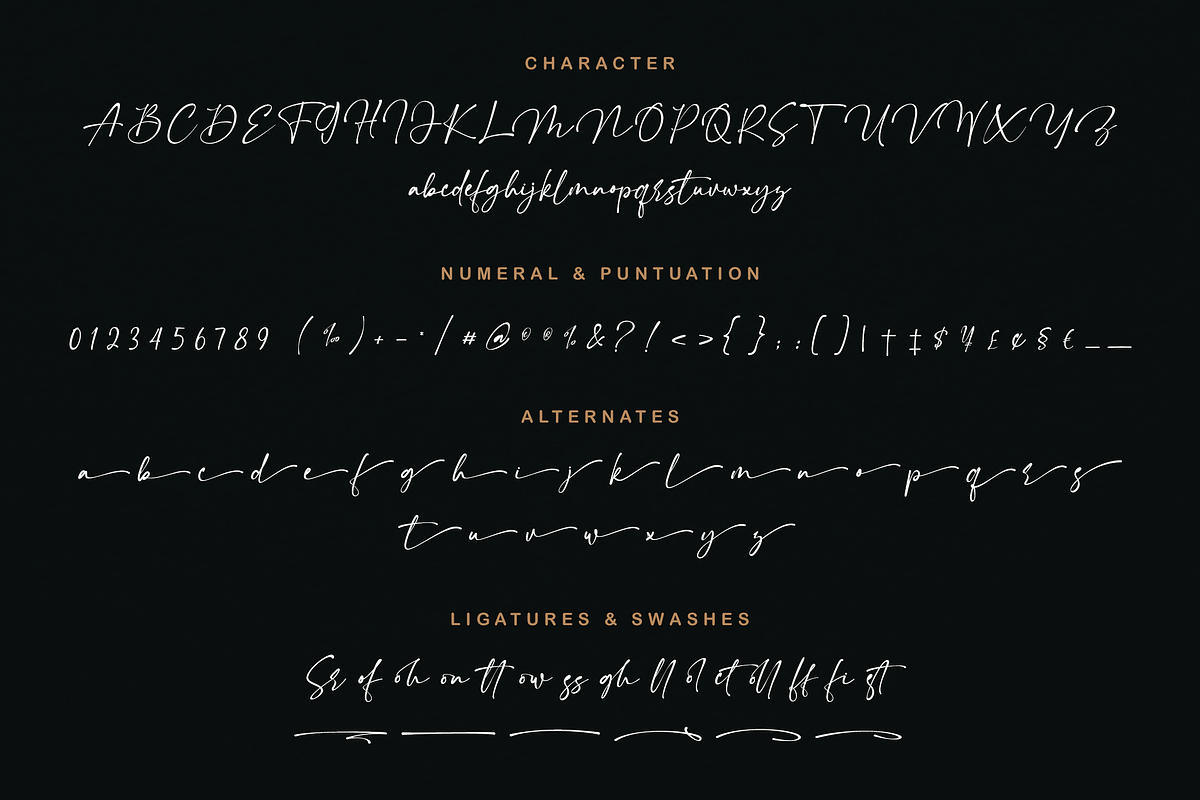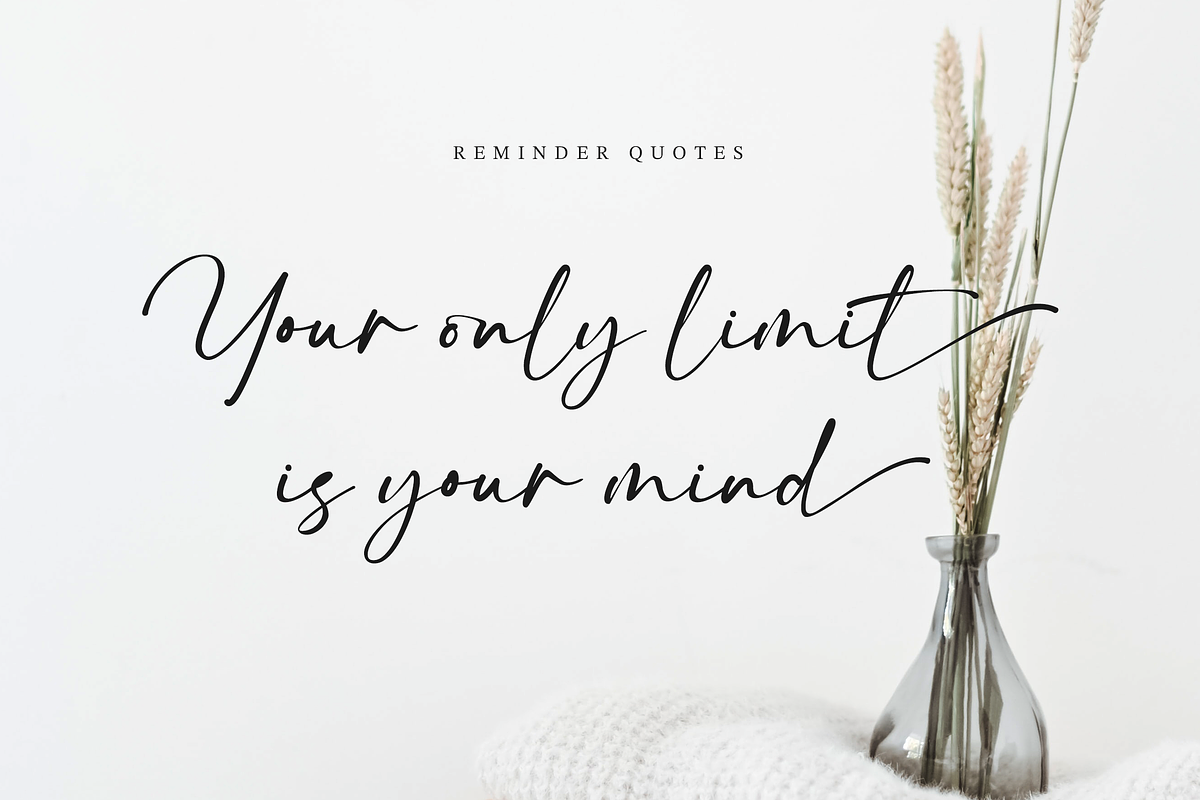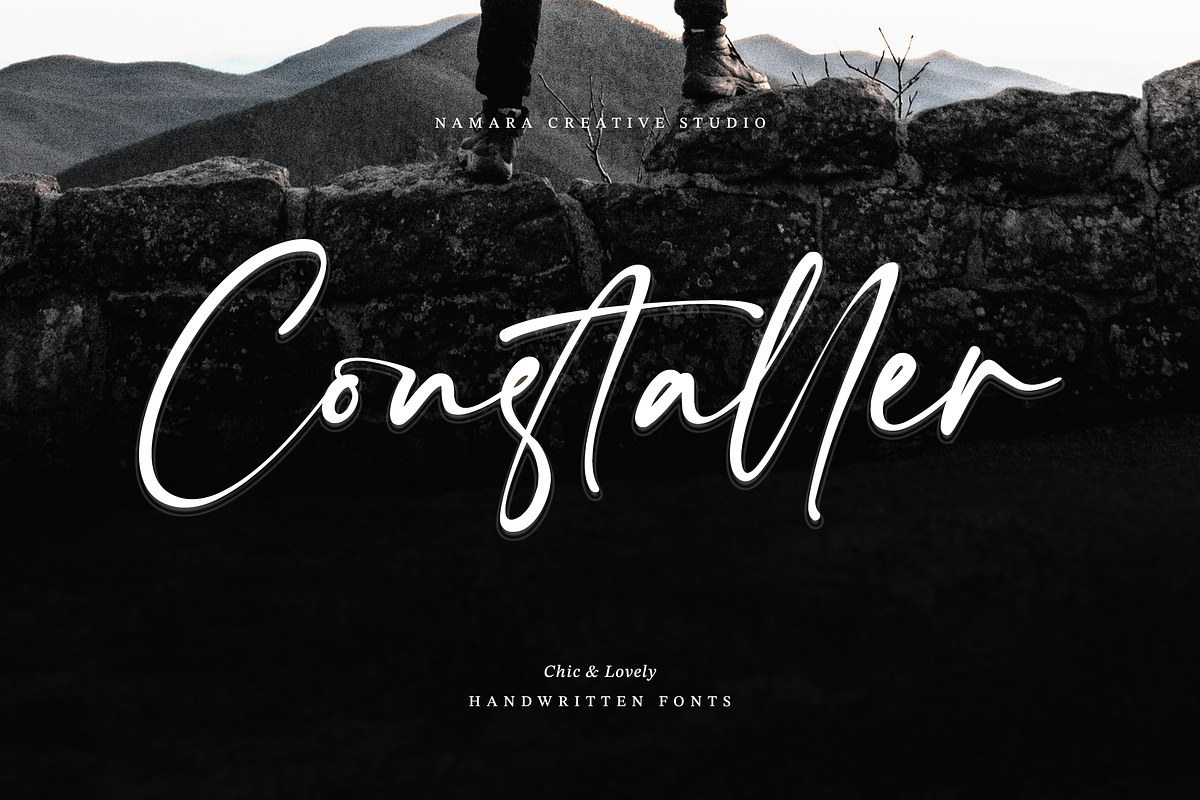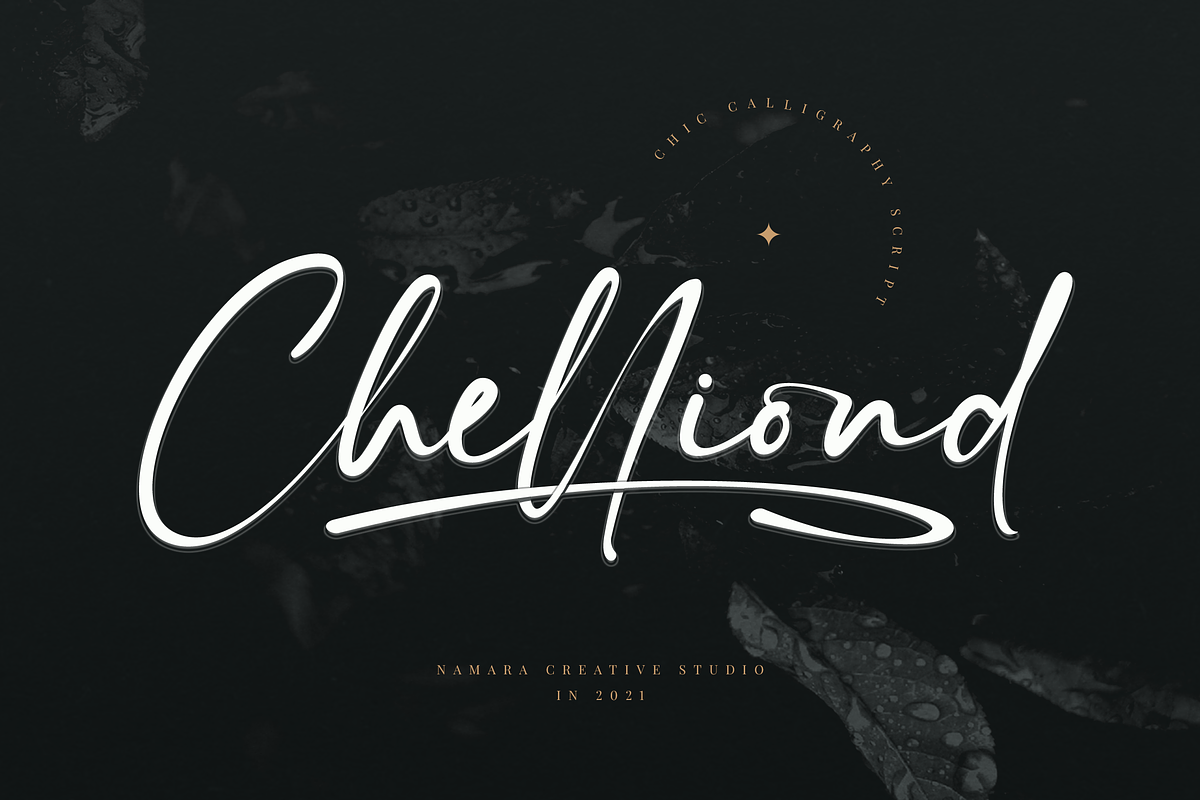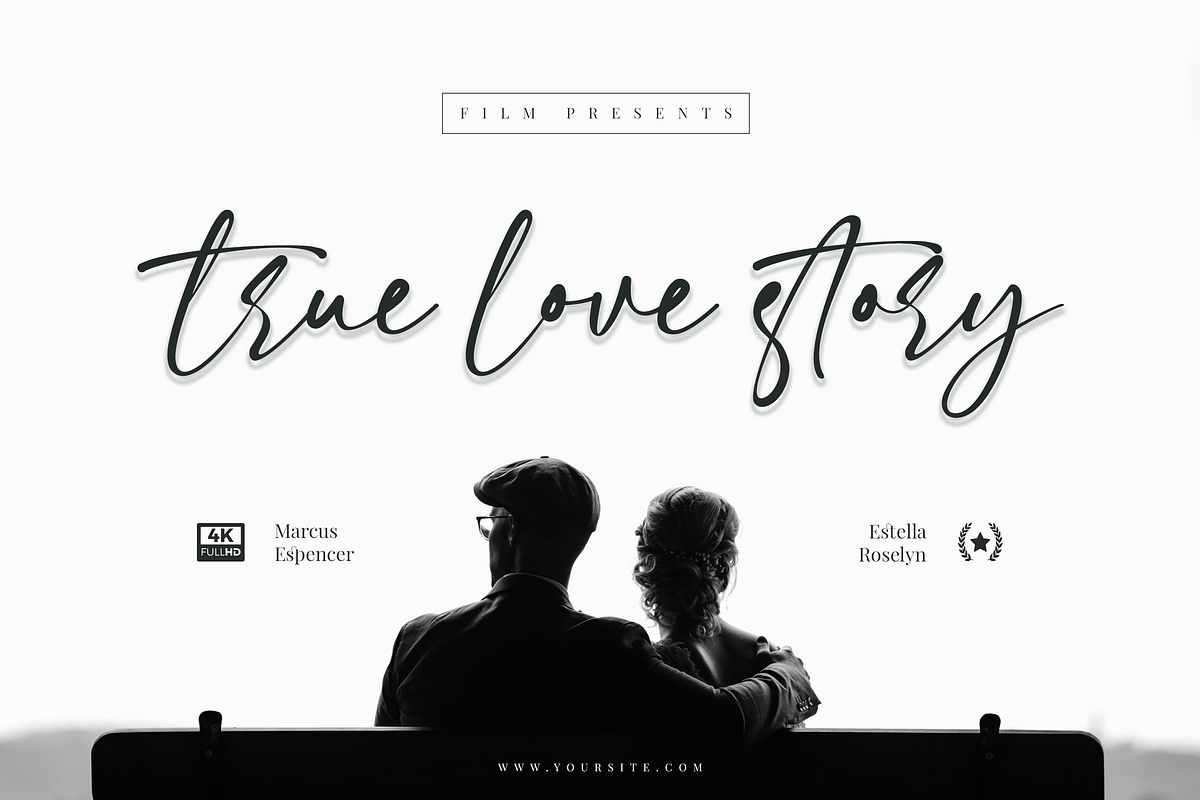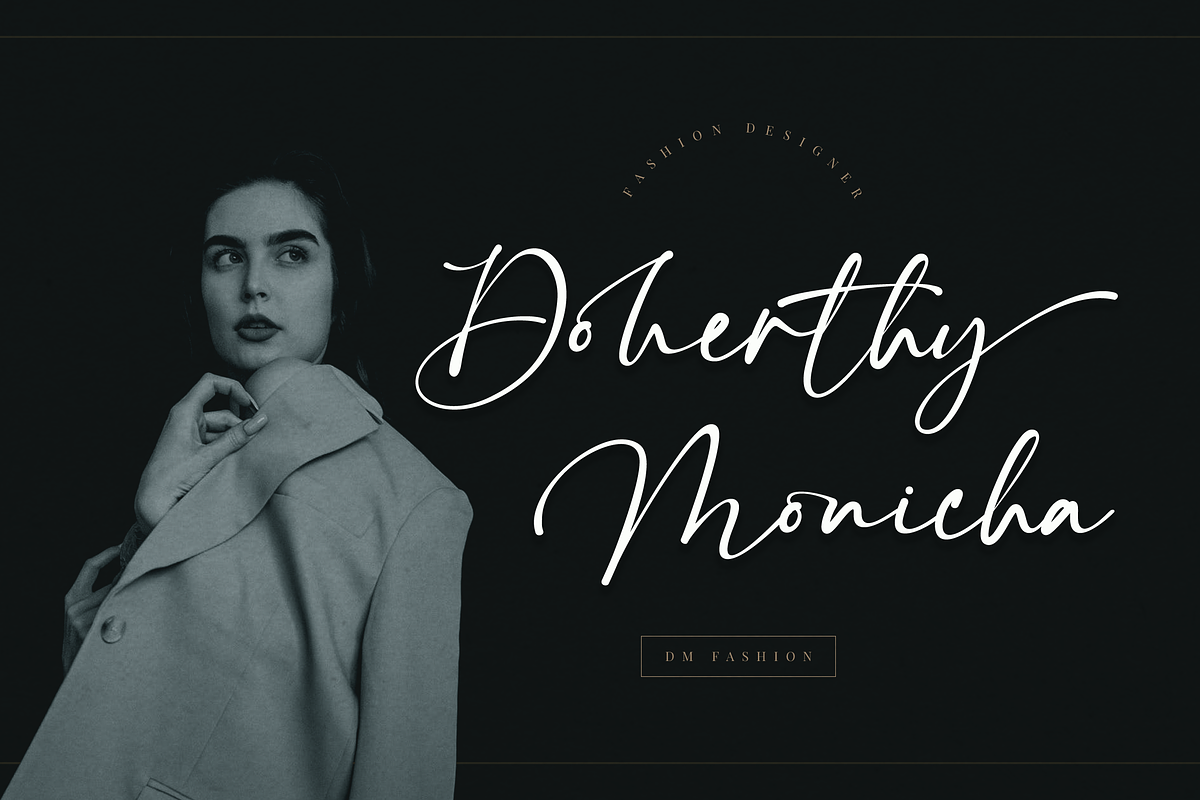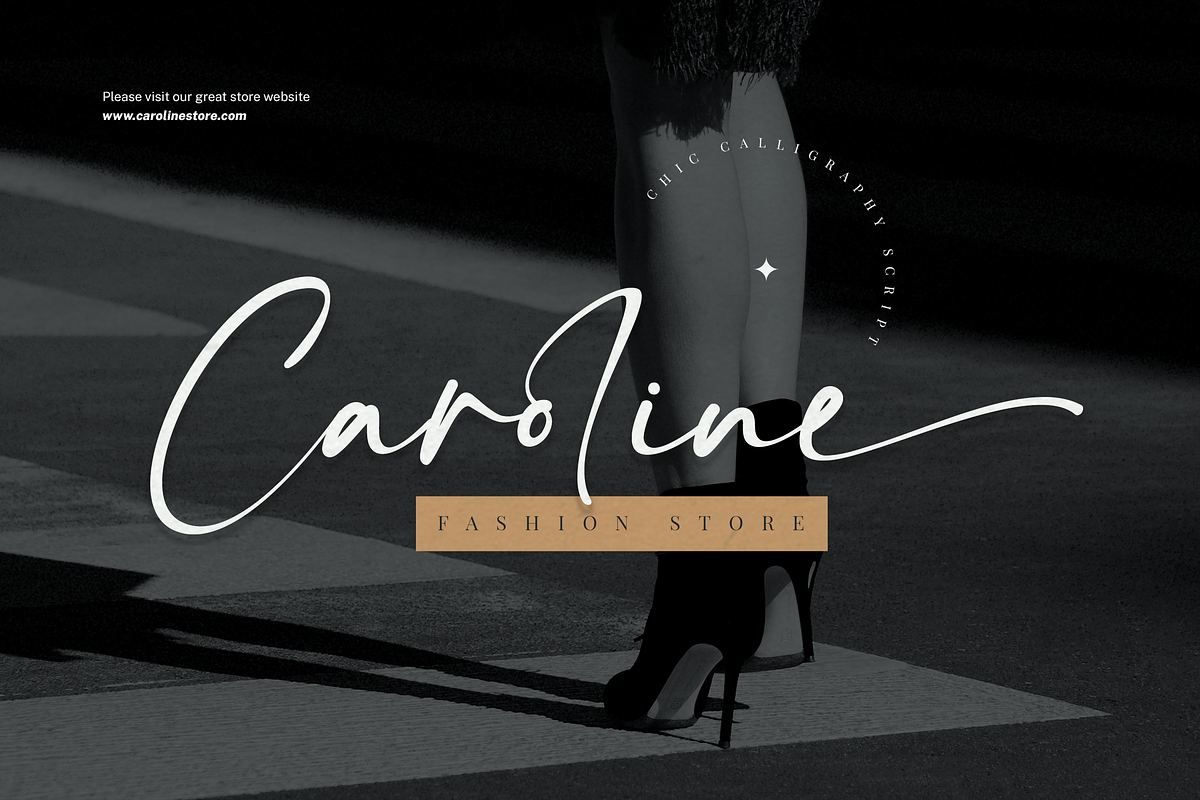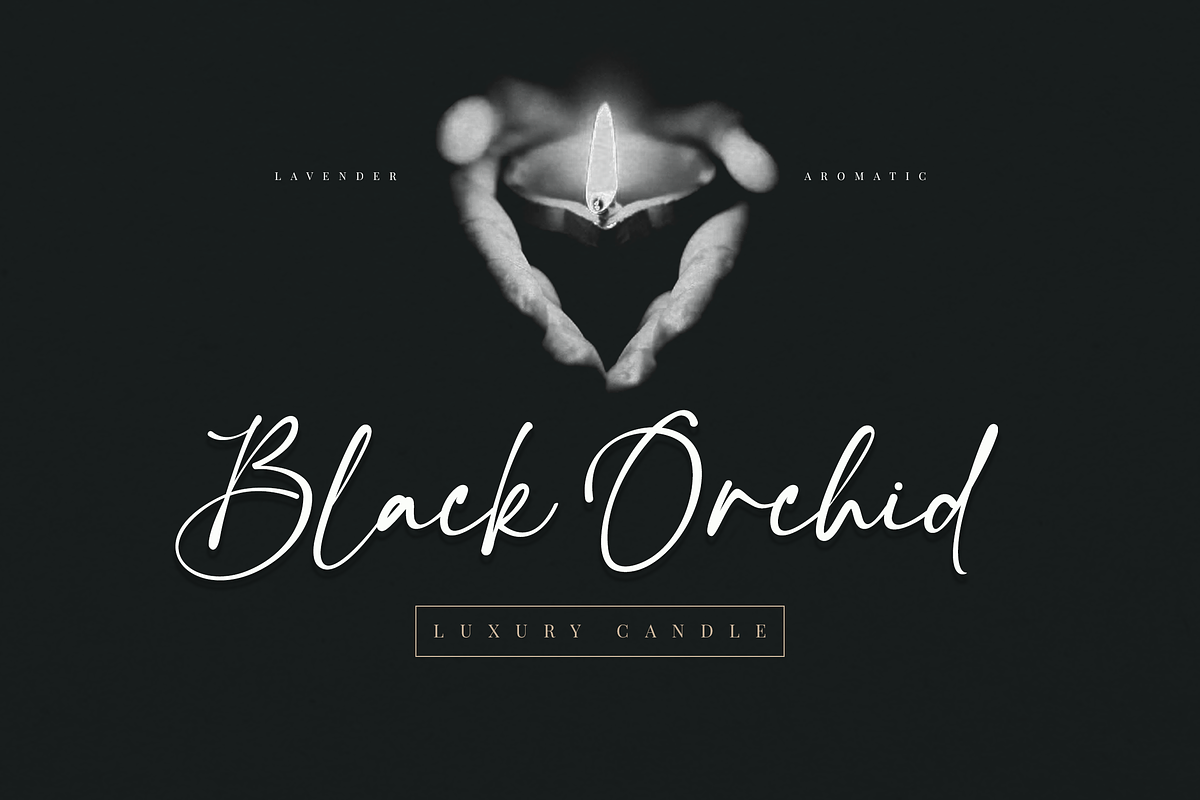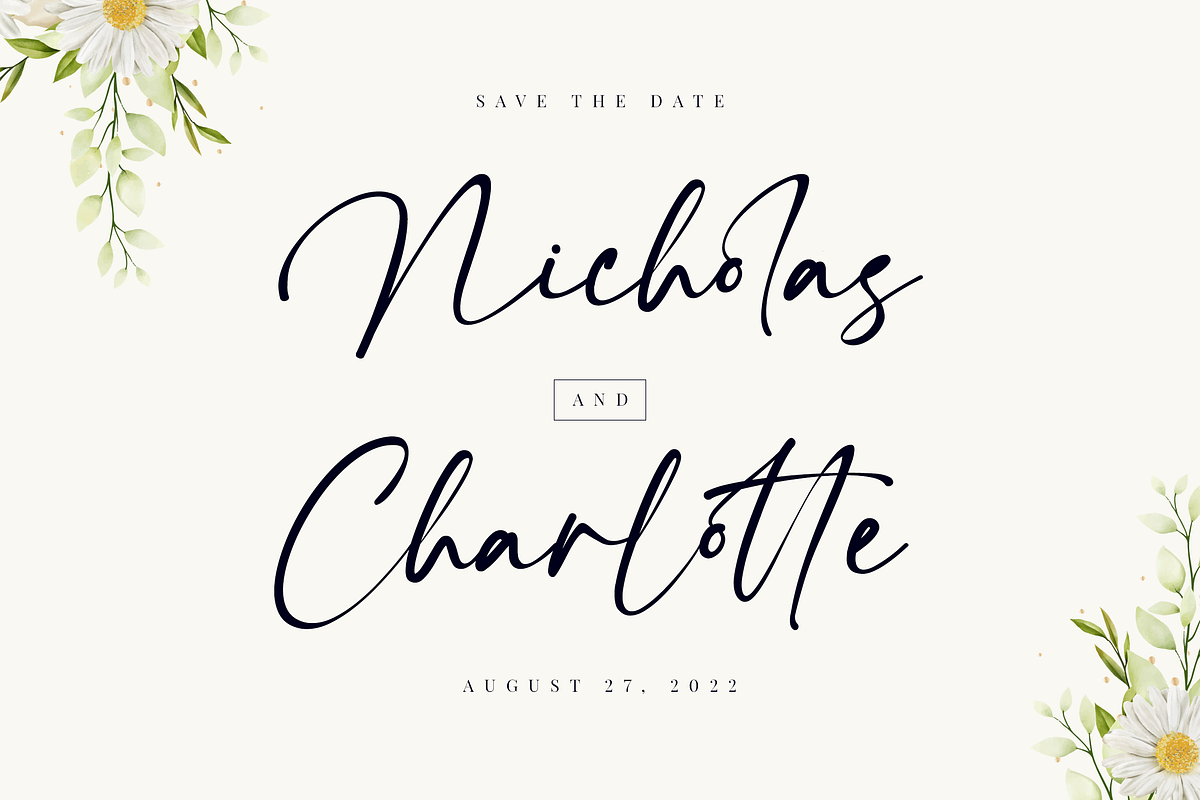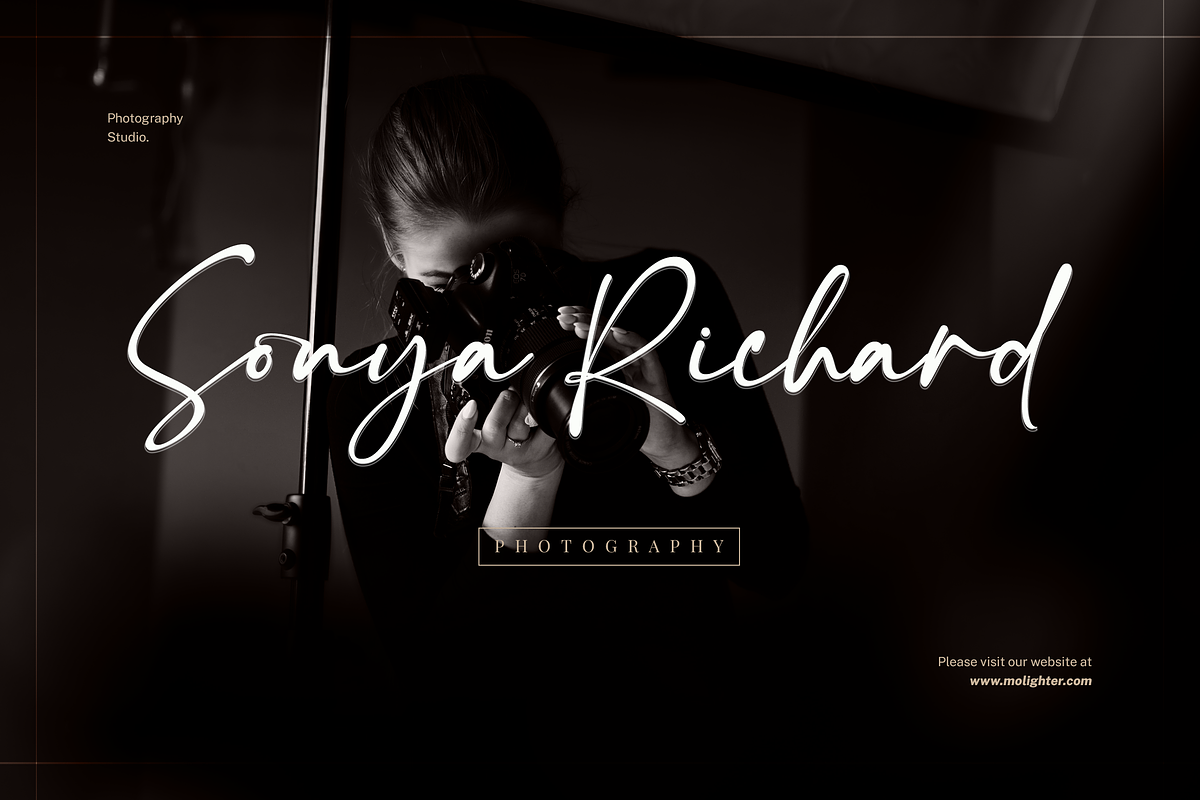
Constaller Chic Calligraphy Script
Modern calligraphy font with casual-chic flair. Magical pressure makes this font perfect for creating signature logos and watermarks for photography studios or wedding invitations. Constaller includes the full set of uppercase and lowercase letters, multilingual symbols, numerals, punctuation, alternates, swash and ligatures.